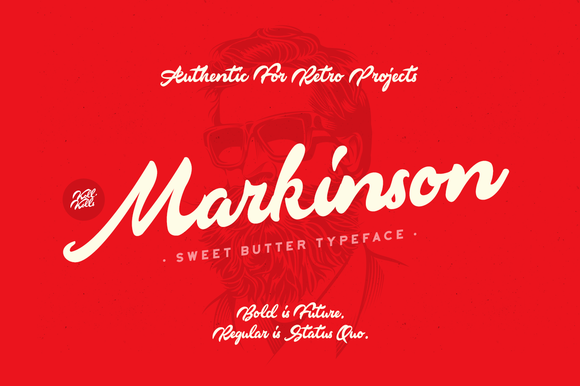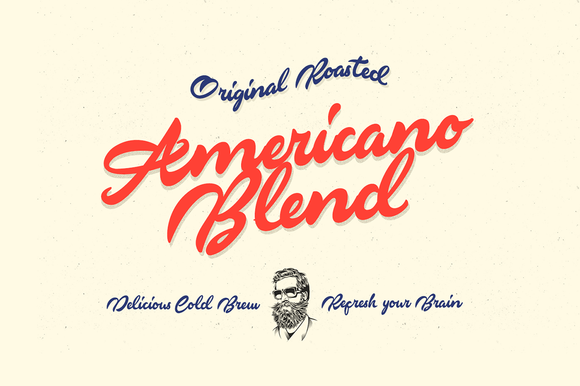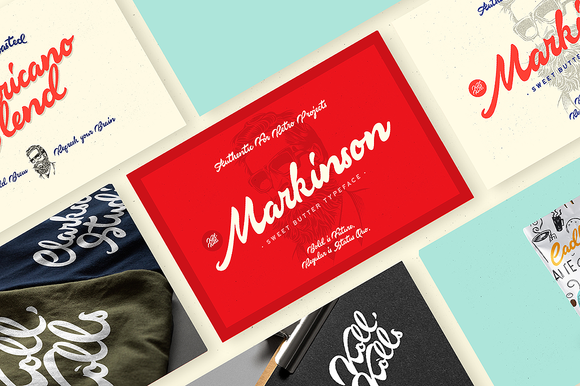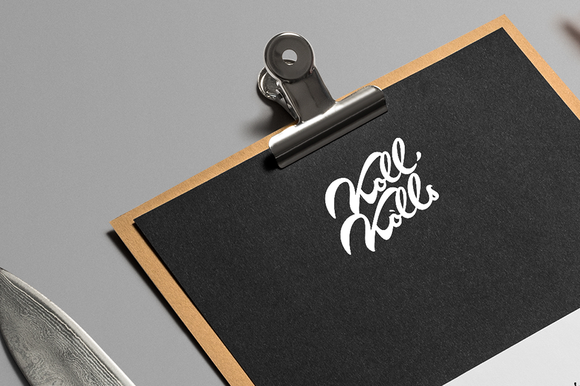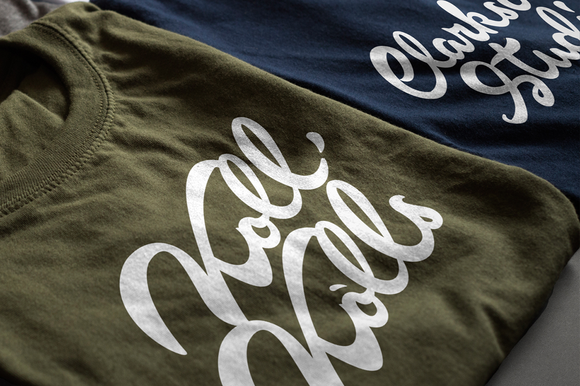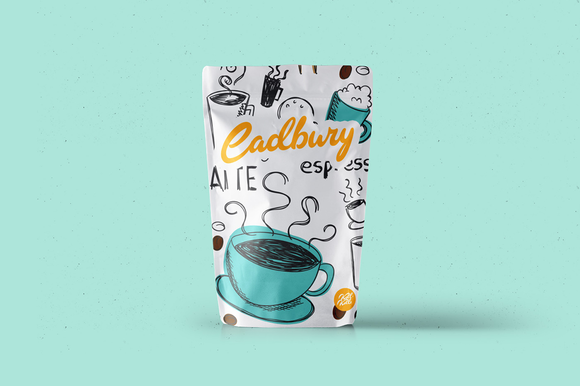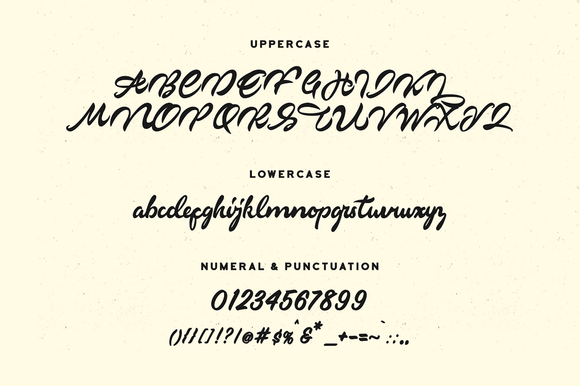
HomeScript FontsMarkinson Font Script Fonts Markinson Font FacebookXPinterestWhatsApp Markinson Font Poster 2 Markinson Font Poster 3 Markinson Font Poster 4 Markinson Font Poster 5 Markinson Font Poster 6 Markinson Font Poster 7 Markinson Font Poster 8 About Markinson Font Markinson is a stunning font with a classic and retro style. DOWNLOAD ON CREATIVE FABRICAThis font is sold and delivered by Creative Fabrica. Font Canyon may earn a commission if you buy through this link. People also explored Baby Love Font School Font Loveydovey Font Memphis Font Maeva Glorious Morning Font Allianty Font The Piper Font Beautiful Nature Font 358 0 TagsMarkinson Font Previous articleGCM Fonton FontNext articleSprightful Font LEAVE A REPLY Cancel reply Comment: Please enter your comment! Name:* Please enter your name here Email:* You have entered an incorrect email address! Please enter your email address here Website: Save my name, email, and website in this browser for the next time I comment. Personal Use Free Scarlove Personal Use Free Read more about this font Zephan Personal Use Free Read more about this font Xplor Personal Use Free Read more about this font Cheque Personal Use Free Read more about this font BLOG Elegant Wedding Invitation Fonts – Handwritten & Script Fonts Elegant Wedding Invitation Fonts Your wedding day is one of the most important moments of your life, and every detail matters—including your invitation design. Our... Free vs Paid Fonts: Why Investing in Premium Fonts Is Worth It Best Fonts for YouTube Videos: Make Your Thumbnails Stand Out Free Fonts Risk: Why Free Fonts Can Be Dangerous for Designers